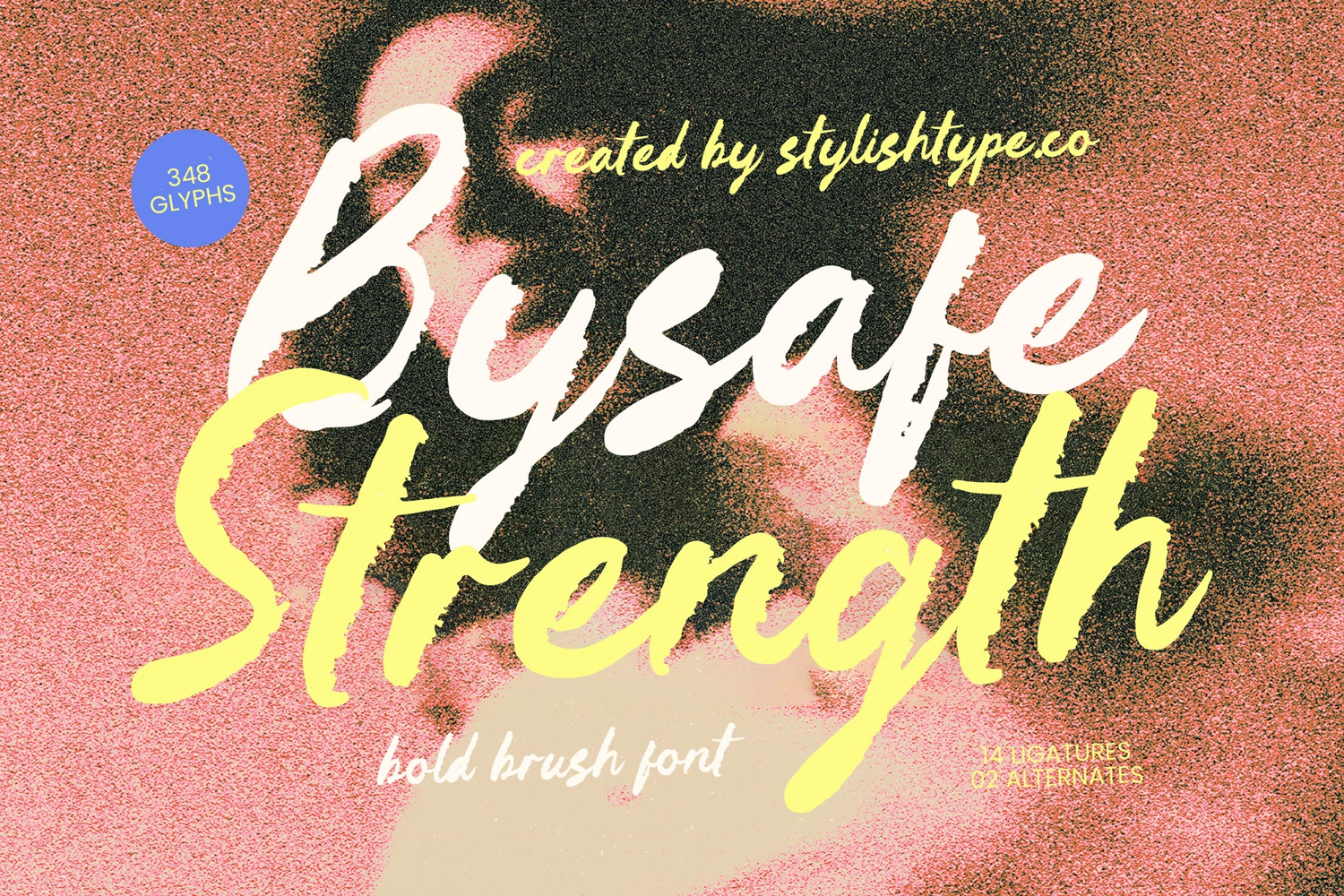
Bysafe Strength - Bold Brush Font
Command attention with the raw energy and unapologetic boldness of Bysafe Strength - Bold Brush Font. Designed to capture the authentic texture of hand-painted strokes, this typeface exudes a dynamic aesthetic that feels both modern and rebellious. The high-impact visuals and organic flow of each character ensure that your messaging stands out with a distinctive personality, making it an essential tool for designers seeking to inject raw emotion into their layouts.
Elevate your brand's visual identity with a font that is perfect for high-end projects and luxury branding. The versatile nature of Bysafe Strength - Bold Brush Font makes it an ideal choice for street-wear packaging, apparel design, editorial headers, and impactful social media graphics. Whether you are crafting a cinematic movie poster or a premium product label, this font provides the artistic flair needed to create a memorable brand experience.